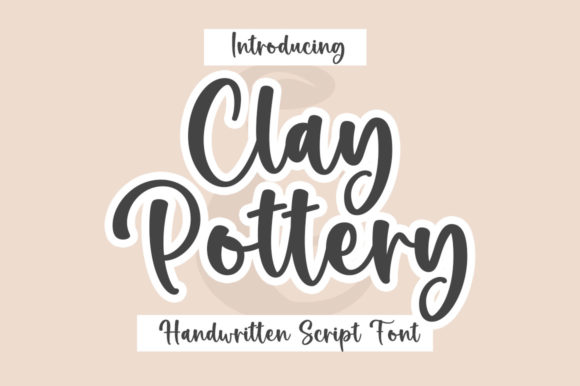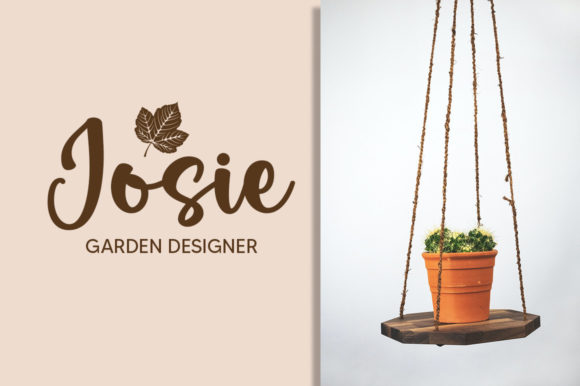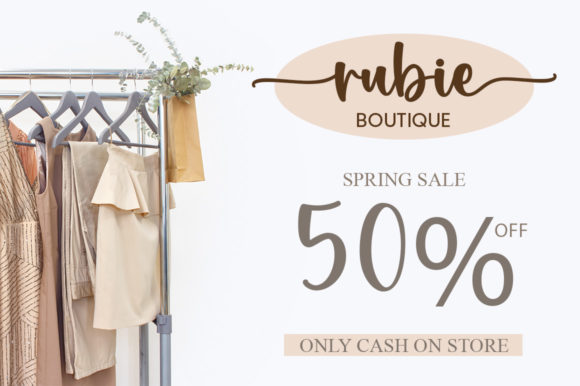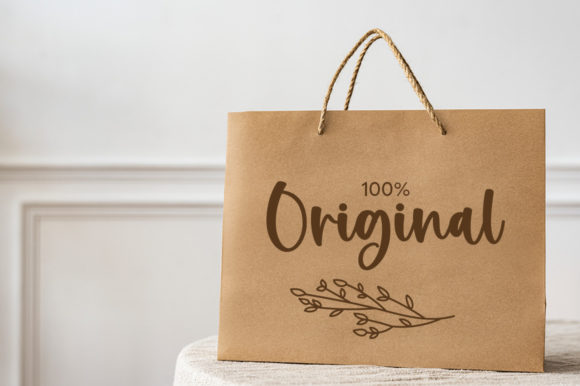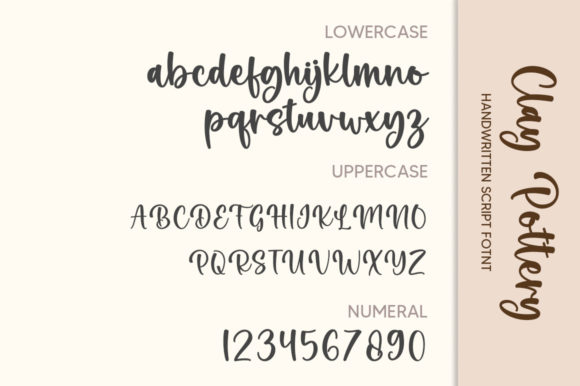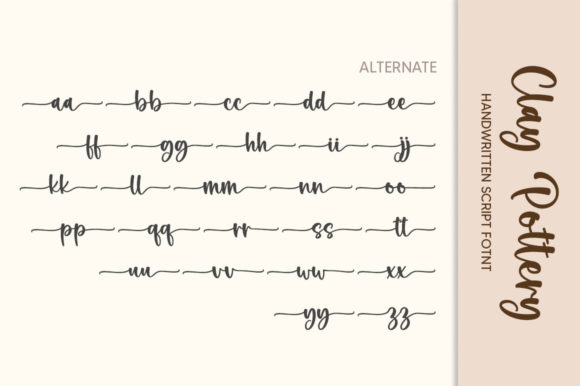
About Clay Pottery Font
“Clay Pottery” is a refined and intelligent script font that exudes an air of sophistication and elegance. With its finely crafted characters and impeccable style, it has the potential to elevate your design projects to new heights. Its versatility allows it to seamlessly fit into a wide range of creative endeavors, from logos and branding to invitations, stationery, and more.
The font’s distinctive charm lies in its delicate and well-balanced strokes, which create a sense of refined craftsmanship. The flowing nature of “Clay Pottery” adds an organic touch to your designs, making them feel both sophisticated and approachable. Whether you’re aiming for a timeless and classic look or a more contemporary feel, this font’s versatility ensures it can adapt to your design vision.
A notable feature of “Clay Pottery” is its PUA encoding, which provides you with easy access to all of the font’s glyphs and swashes. This encoding empowers you to customize your designs effortlessly, adding flourishes and decorative elements that enhance the overall aesthetic of your projects.
In conclusion, “Clay Pottery” is a font that embodies elegance, versatility, and refinement. Its fine and smart script style, combined with its extensive glyph and swash collection, makes it a valuable tool for designers seeking to create visually stunning and sophisticated designs. Incorporate “Clay Pottery” into your creative work and experience how it transforms your projects into true works of art.